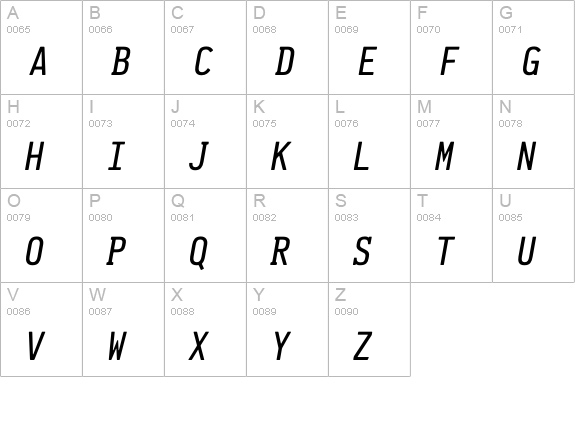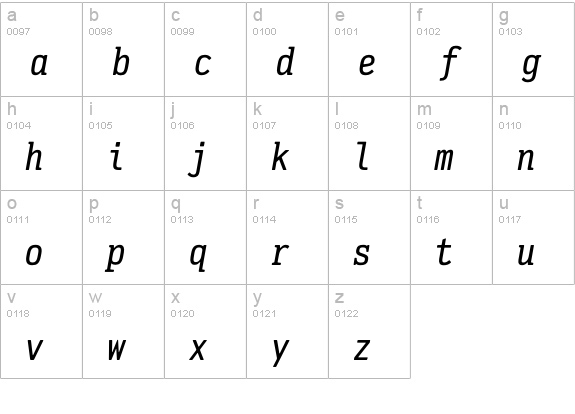
Pennsylvania Regular Italic is the standard, neutral, italic variant in the Pennsylvania typeface family \xE2\x80\x94 well suited to general body text, paragraphs, and standard typographic work.
Pennsylvania Regular Italic is a stunningly elegant font that effortlessly combines classic sophistication with contemporary flair. Its slender and gracefully slanted letterforms exude a sense of refined beauty, making it the perfect choice for projects that require a touch of sophistication. With its smooth curves and delicate strokes, Pennsylvania Regular Italic captures attention and adds a touch of elegance to any design. The italicized style adds a sense of movement and fluidity, giving your text a dynamic and captivating appearance. Whether it's used for headings, subheadings, or body text, this font will lend a sense of grace and style to your design. The versatility of Pennsylvania Regular Italic makes it a truly exceptional font. It is suitable for a wide range of applications, including editorial design, branding, packaging, advertising, and more. Its timeless appeal ensures that it will remain relevant and visually appealing for years to come. What makes Pennsylvania Regular Italic even more remarkable is that it is freely available to download at FontsMarket.com. This means that designers and enthusiasts alike can access this exquisite font without any cost or restrictions. Its availability ensures that anyone can enjoy the beauty and versatility of Pennsylvania Regular Italic, and incorporate it into their creative projects. So, if you're looking for a font that effortlessly combines classic elegance with a modern twist, look no further than Pennsylvania Regular Italic. Download it today from FontsMarket.com and let its exquisite design elevate your creations to new heights.